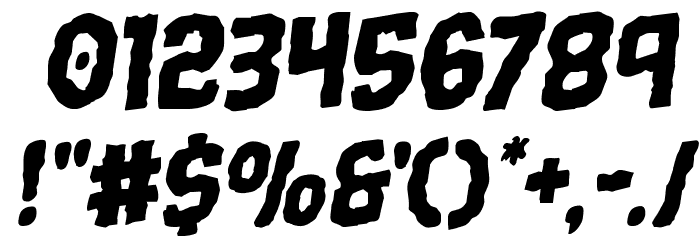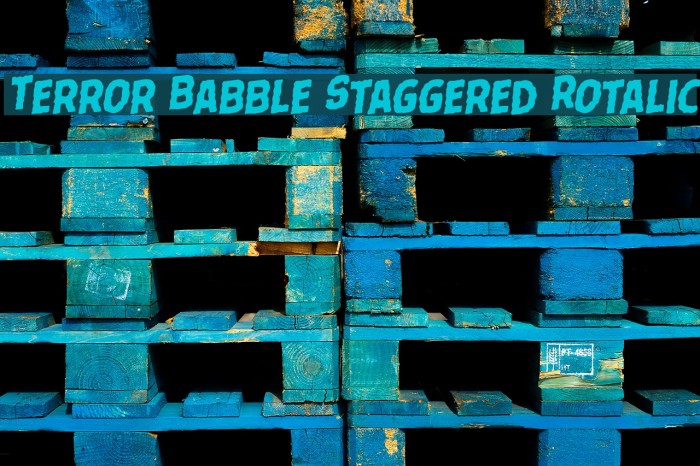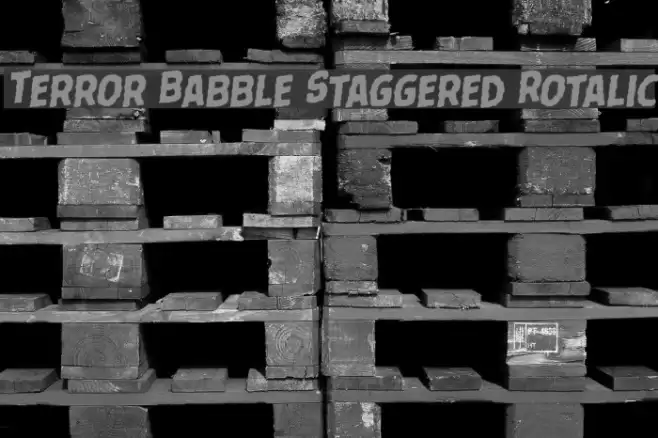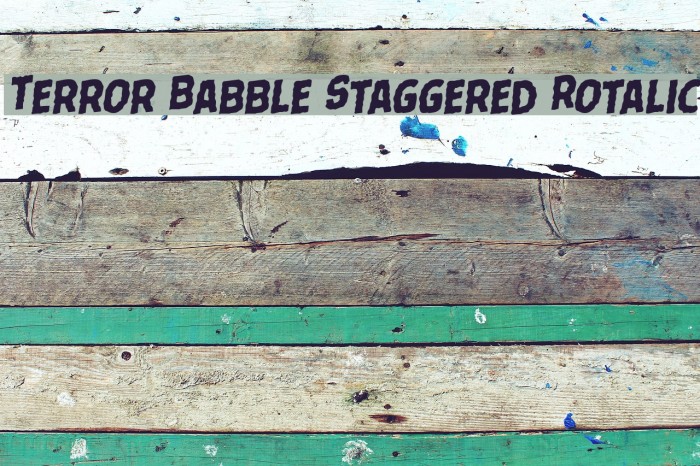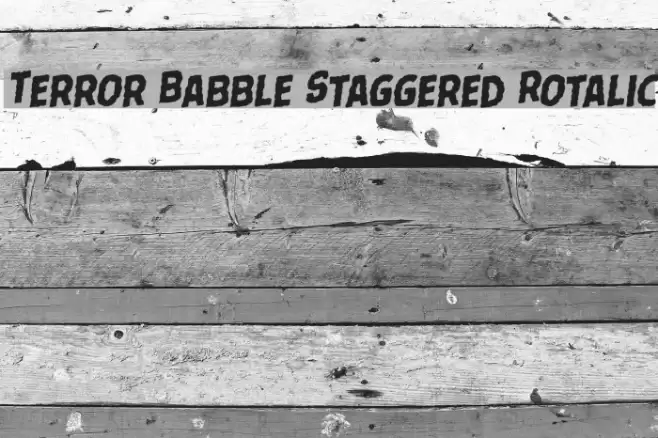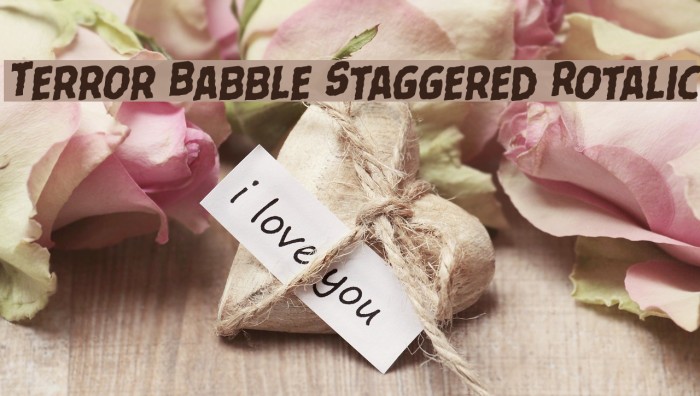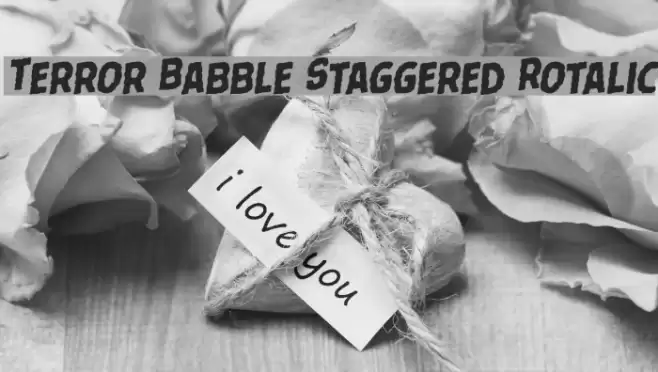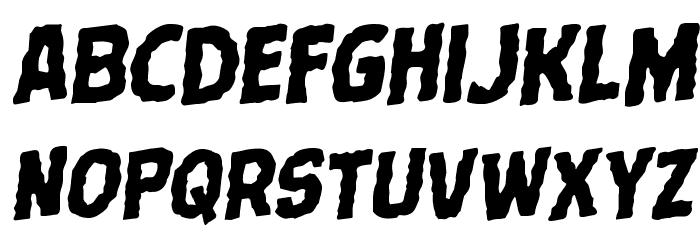
Terror Babble Staggered Rotalic Font
Terror Babble Staggered Rotalic Description
This font features a bold, staggered appearance with a dynamic and slightly chaotic style. The characters have a rough, hand-drawn look, giving them a unique and expressive personality. The uppercase and lowercase letters maintain a consistent weight, while the numbers and special characters follow the same bold and irregular pattern. The overall design suggests movement and energy, making it suitable for projects that require a strong visual impact. The font's distinct style is perfect for creative and unconventional designs.
| Proposed Projects | Ideal for posters, album covers, branding for edgy products, or any design needing a bold statement. |